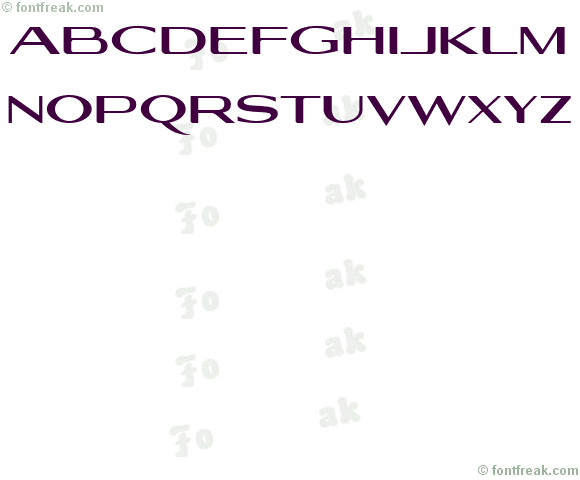
Georgiquas
About Georgiquas
Georgiquas is a distinctive serif font designed by Benoit Sjoholm in 2012. This typeface embodies a blend of modern and classic elements, making it versatile for a variety of design projects. The font features moderate stroke weight and a balanced contrast, which contributes to its legibility and elegance. The letterforms are characterized by their refined curves and clean lines, providing a polished appearance. The generous spacing between characters enhances readability, making it suitable for both print and digital applications.
Georgiquas is particularly well-suited for use in wedding invitations, where its sophisticated style can convey elegance to the occasion. It also shines in branding for upscale restaurants, helping to create an inviting atmosphere through menus and promotional materials. Additionally, the font can be effectively utilized in movie posters to capture attention and evoke a sense of drama. Content creators and graphic designers will find Georgiquas to be an excellent choice for online publications and blogs, as it adds a touch of professionalism and charm to their written content.
What makes Georgiquas stand out is its ability to blend timeless elegance with contemporary design. Its versatility across various applications, combined with its aesthetic appeal, ensures that it remains a popular choice for anyone looking to make a lasting impression in their typography. Whether for print or digital media, Georgiquas offers a unique solution that enhances any creative project.